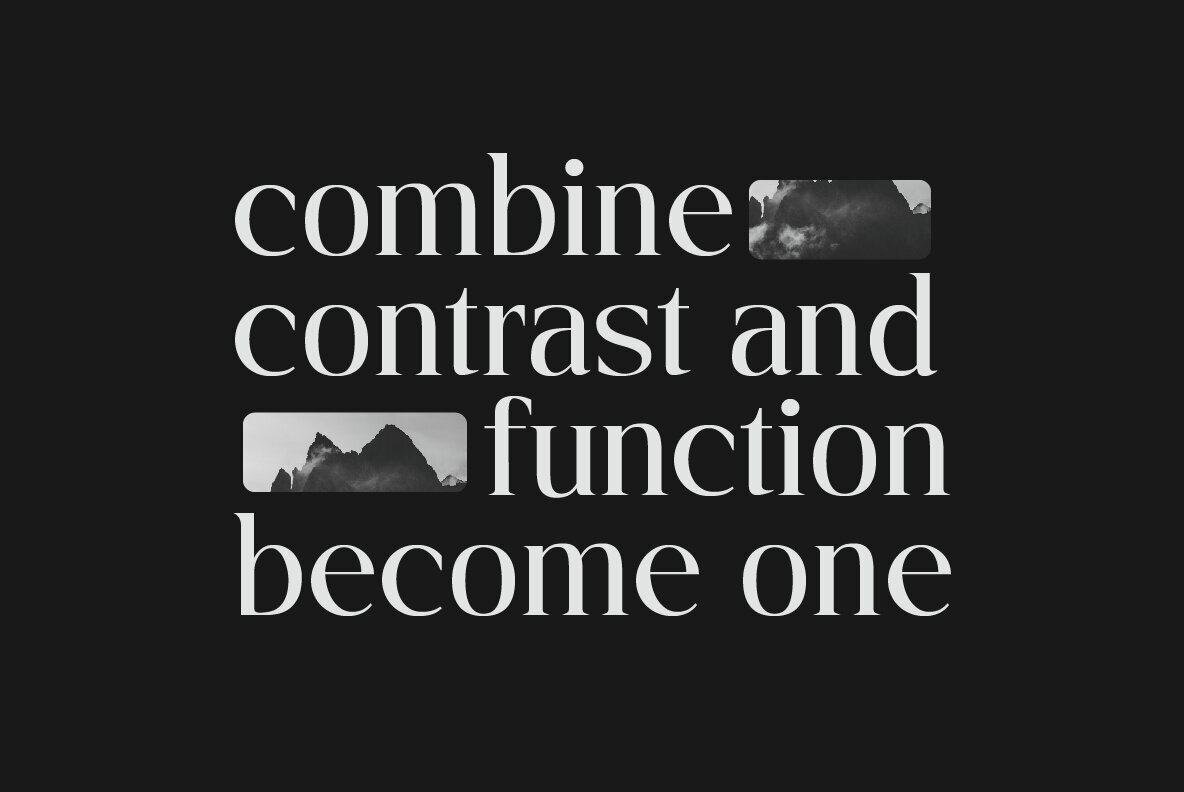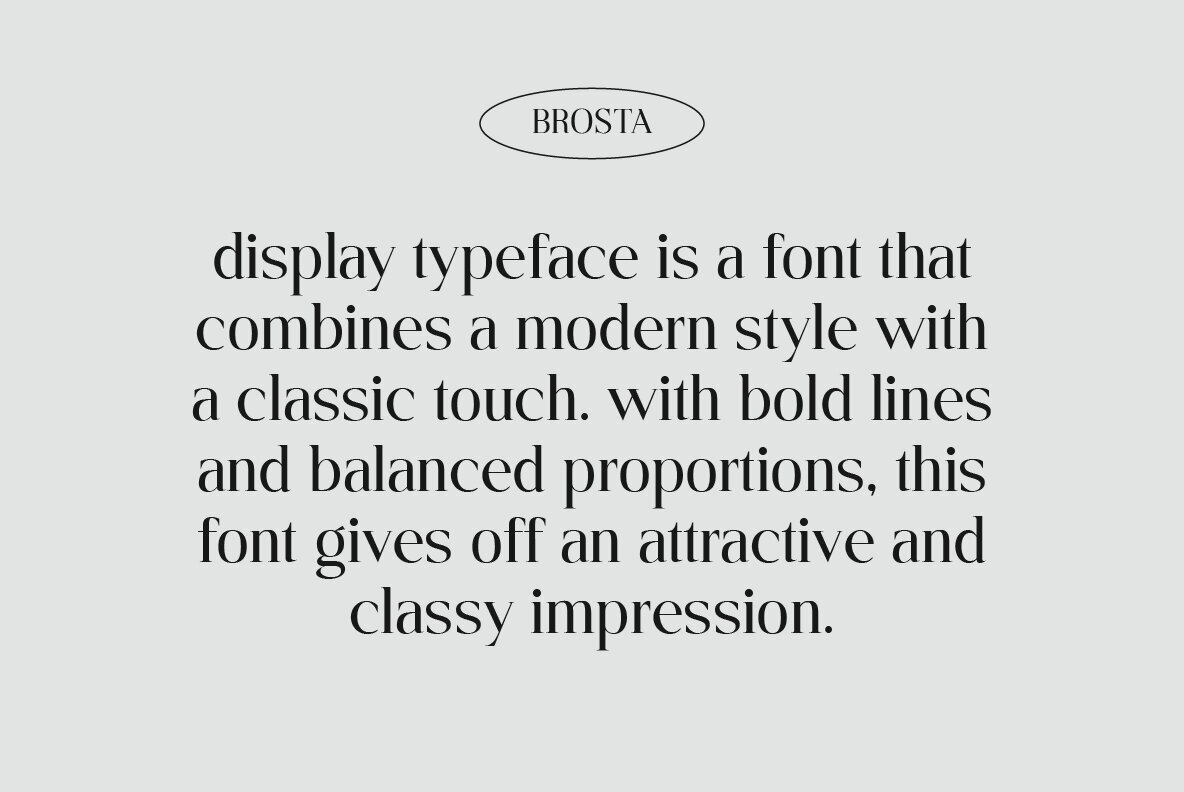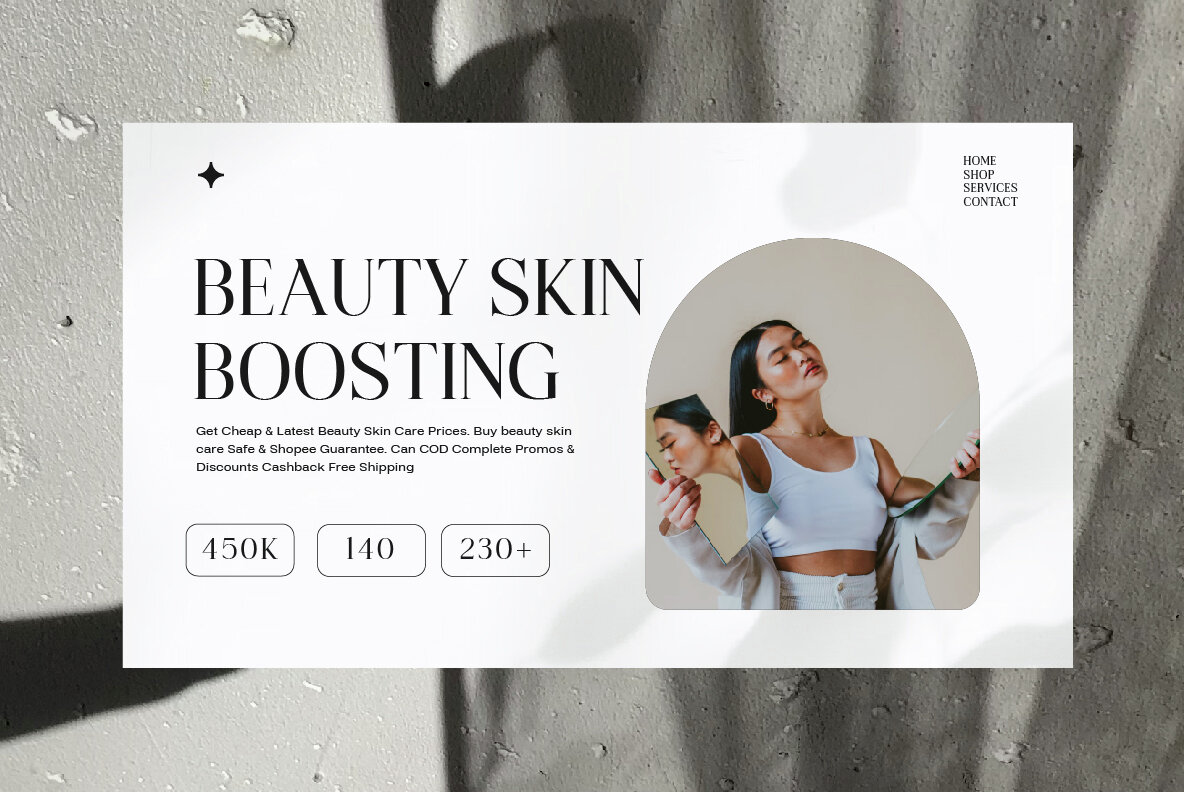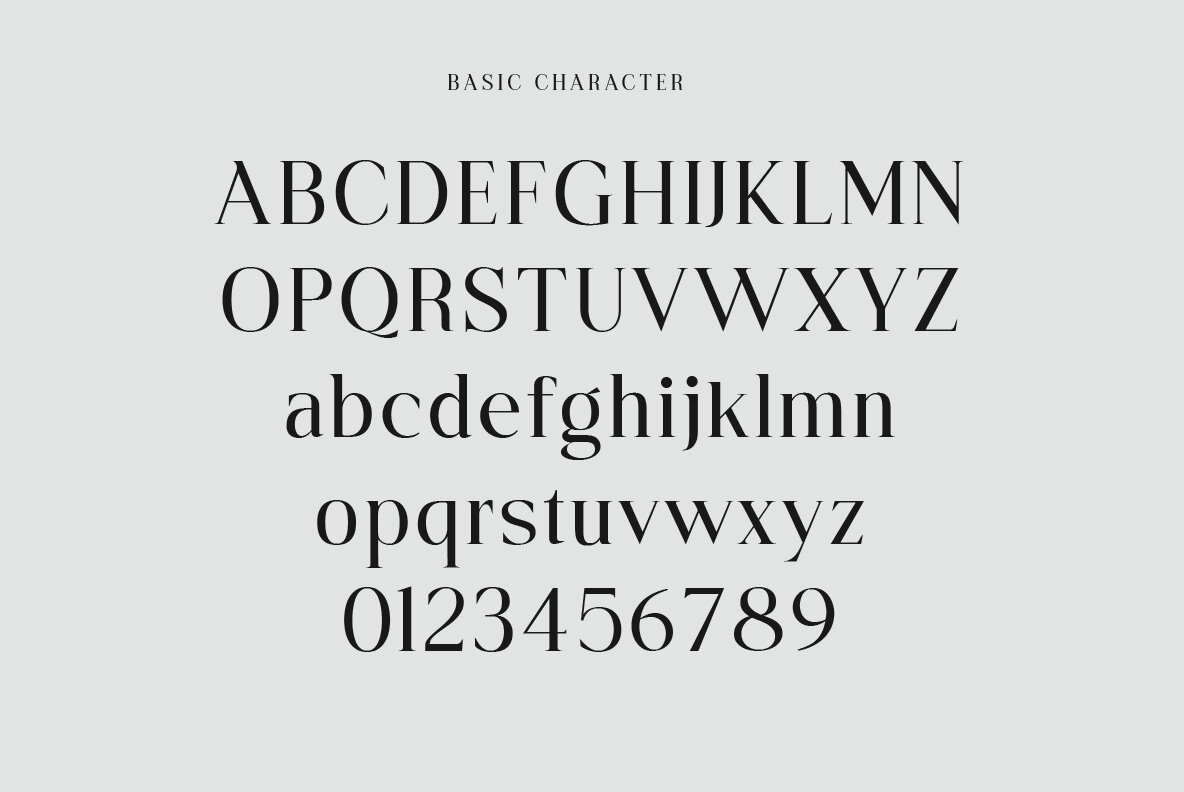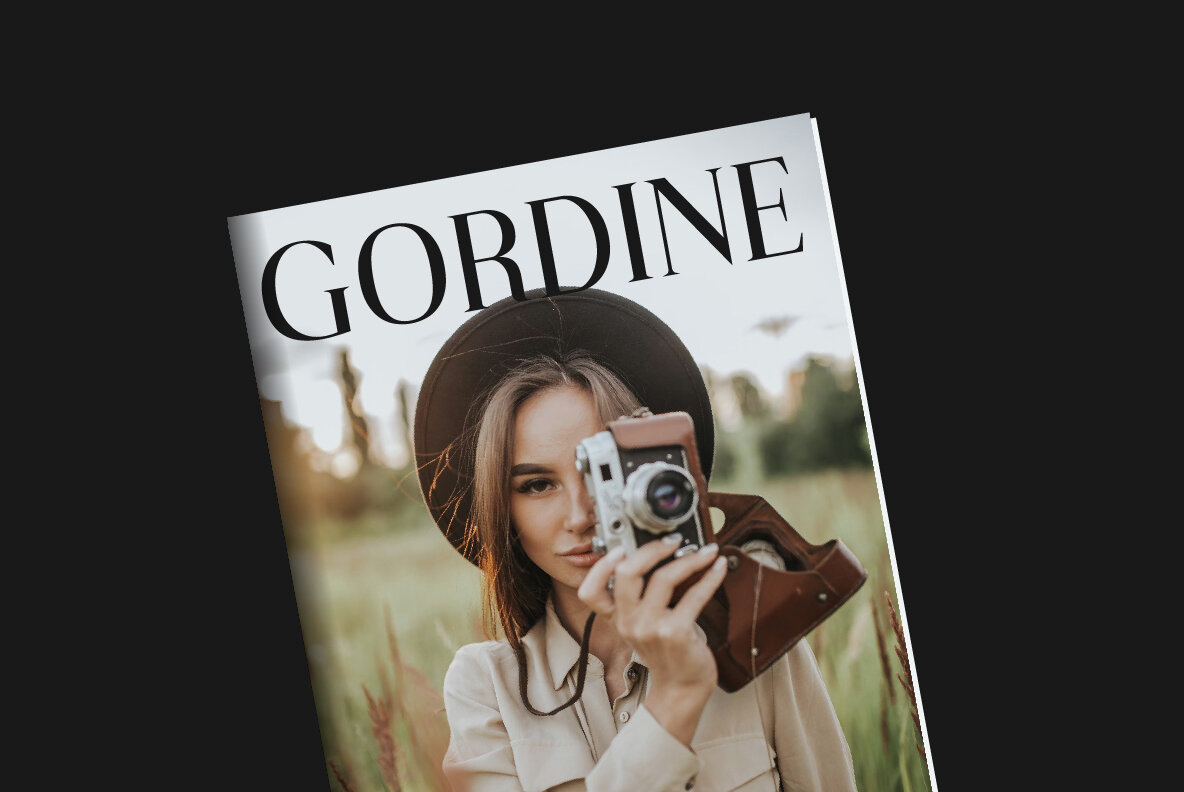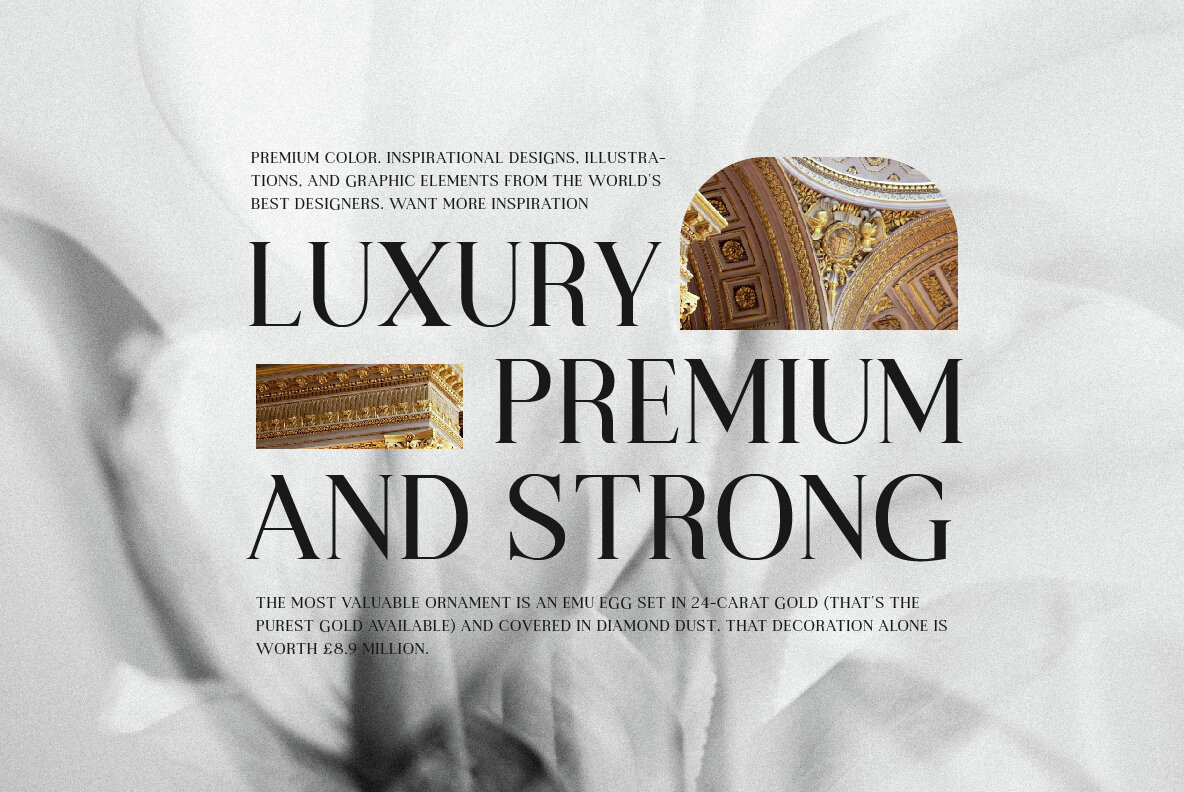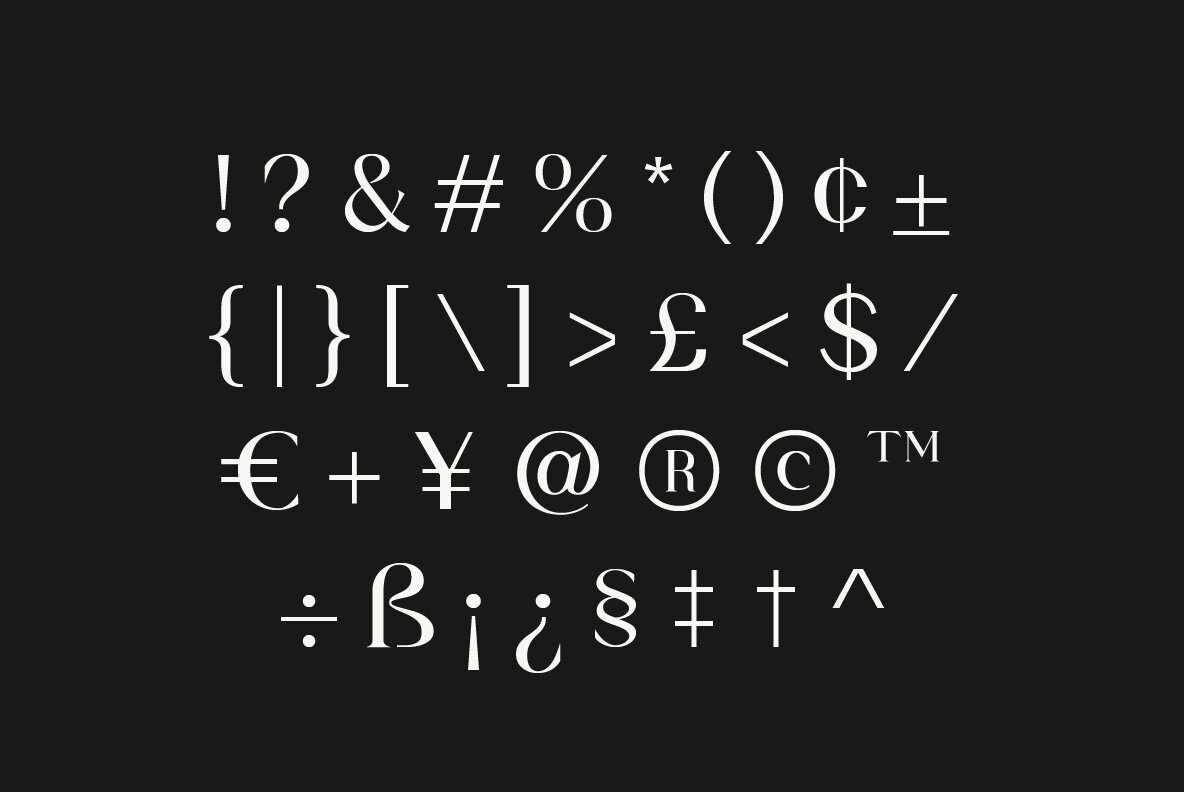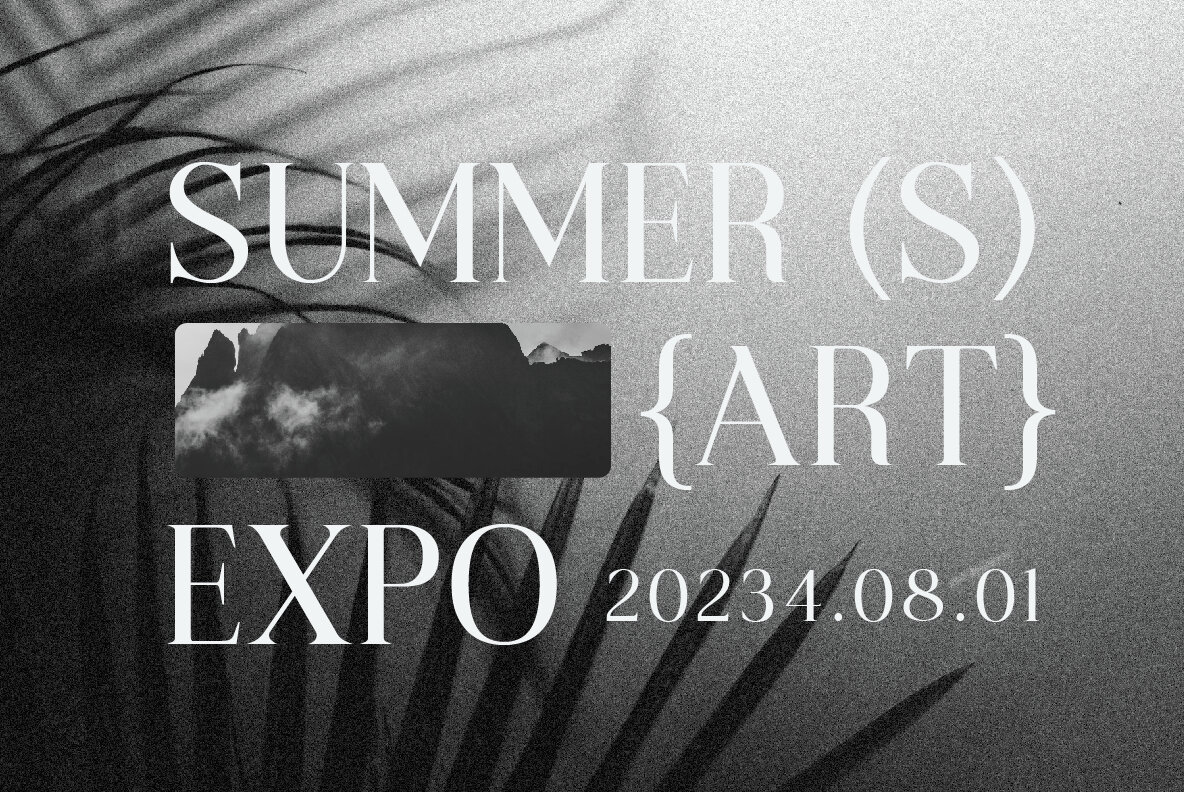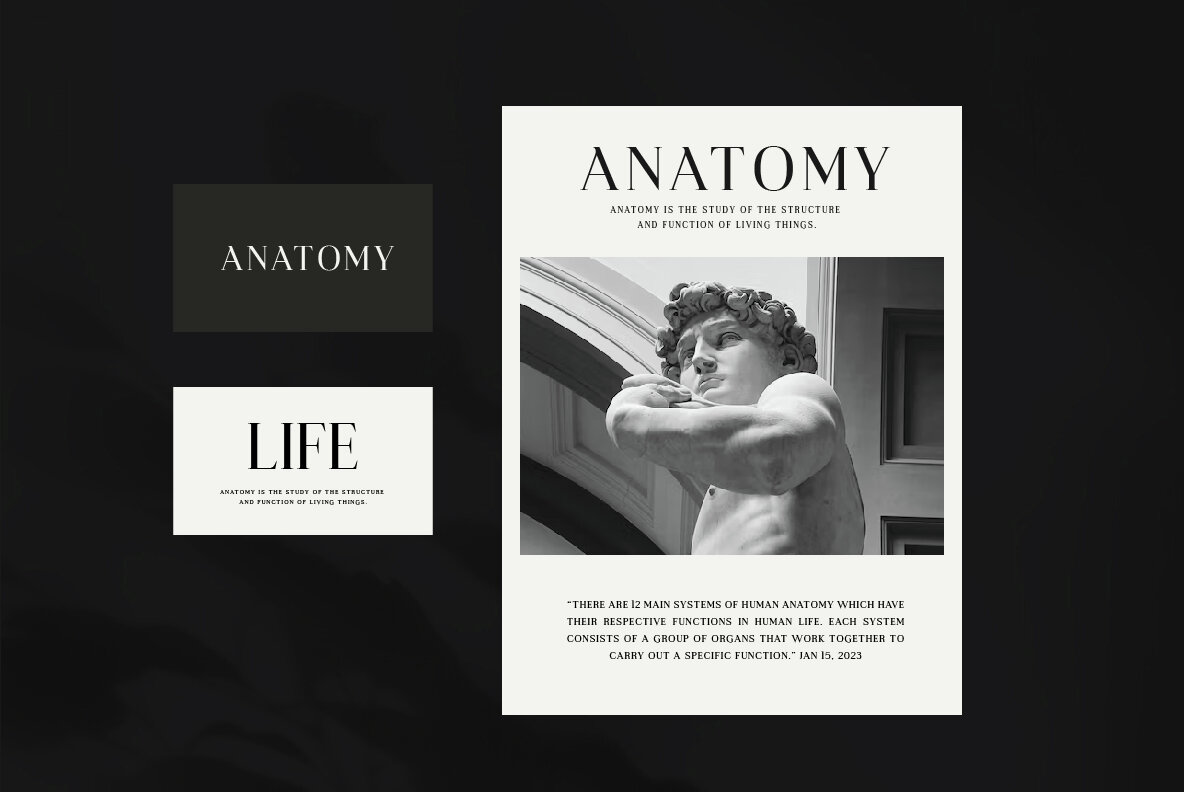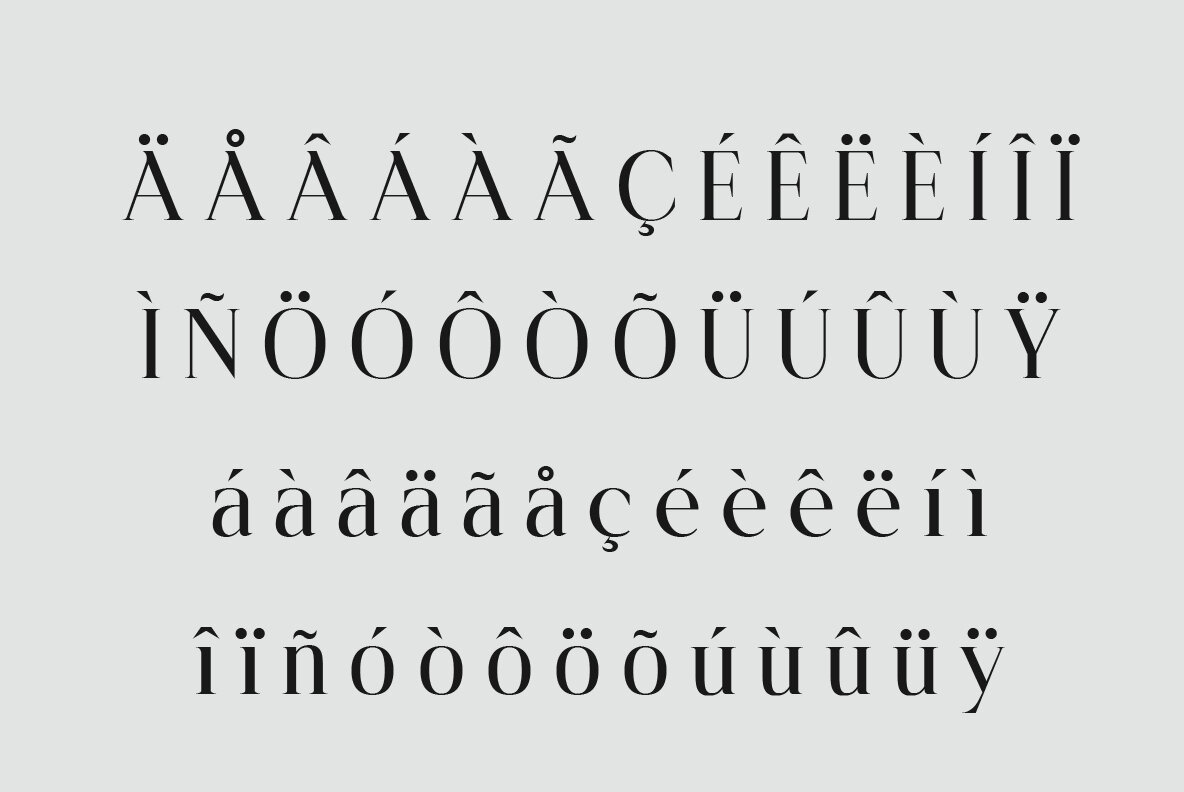
Brosta Font
Brosta Regular
Brosta Serif Fonts are the font of choice for designers looking to add a touch of sophistication and modernity to their projects. The bold letters create a strong yet minimalistic feel that can make any text stand out. Looking for a sleek, modern font that still has classic charm? Brosta Serif Fonts! This clean, minimalist option is perfect for everything from headlines to body copy.